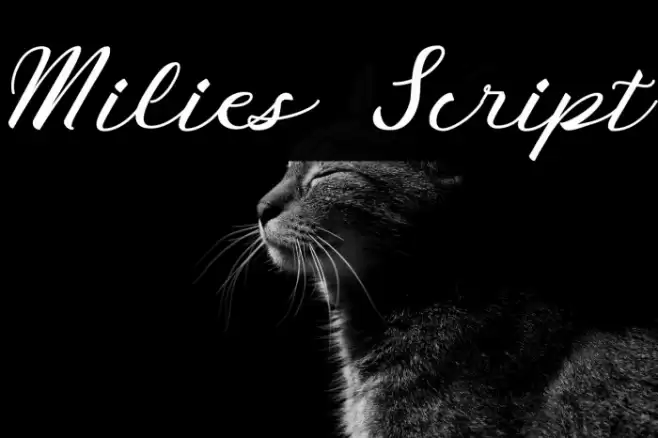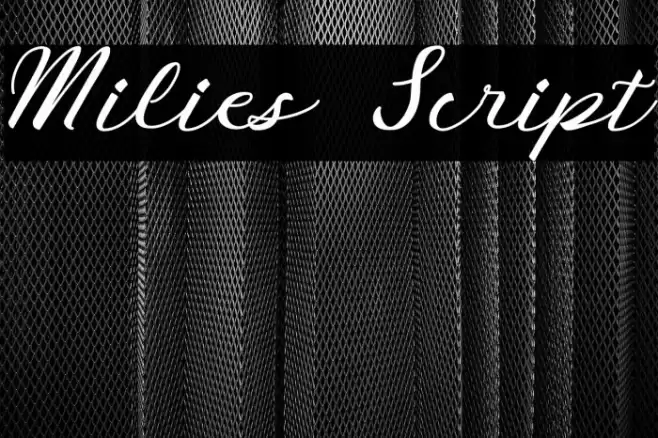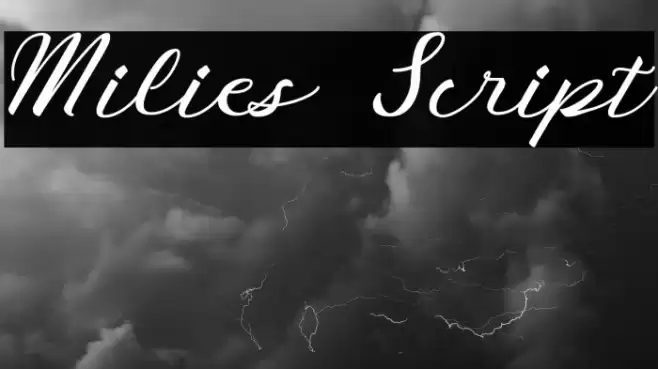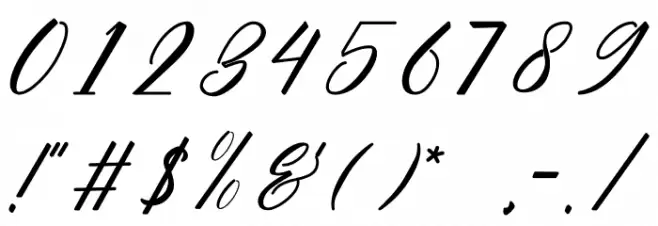
Milies Script Font
Milies Script Description
This elegant script font features a flowing, cursive style with smooth, connected strokes that give it a graceful and sophisticated appearance. The uppercase letters are slightly more ornate, with sweeping curves and flourishes, while the lowercase letters maintain a consistent, fluid motion. The numerals and special characters are designed to complement the overall aesthetic, ensuring a cohesive look across all text. The font's design is both classic and modern, making it versatile for various applications. Its high contrast in stroke thickness adds to its readability and visual appeal, making it suitable for both digital and print media.
A graceful and sophisticated script font with flowing, connected strokes from Regular fonts.
- Proposed Projects: Ideal for wedding invitations, elegant branding, greeting cards, and luxury product packaging.
- Overall Style: Elegant, Classic
- Use Case: Headlines, Invitations, Branding